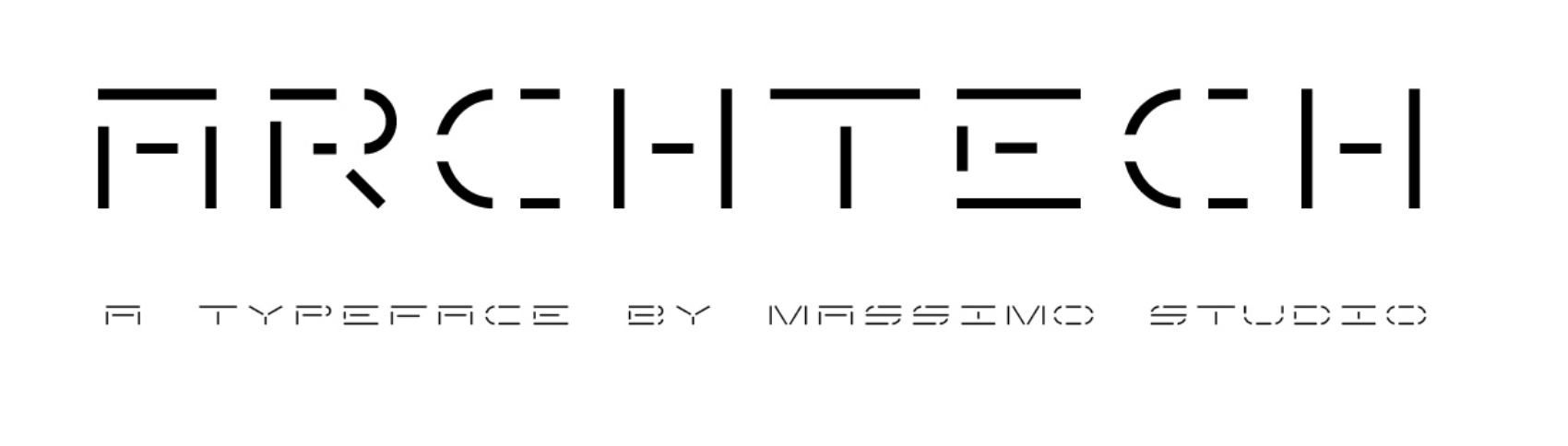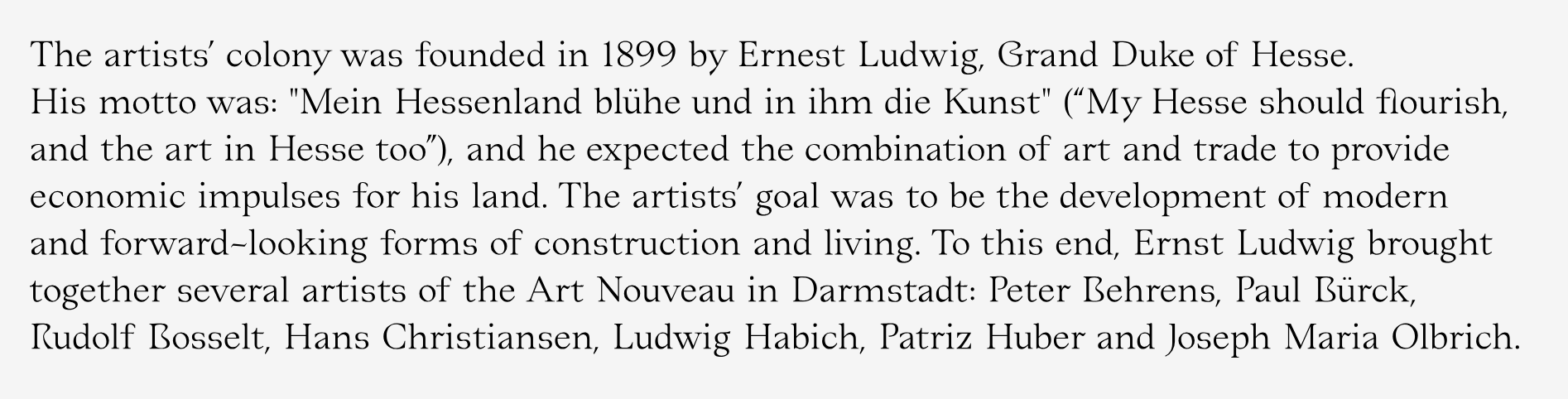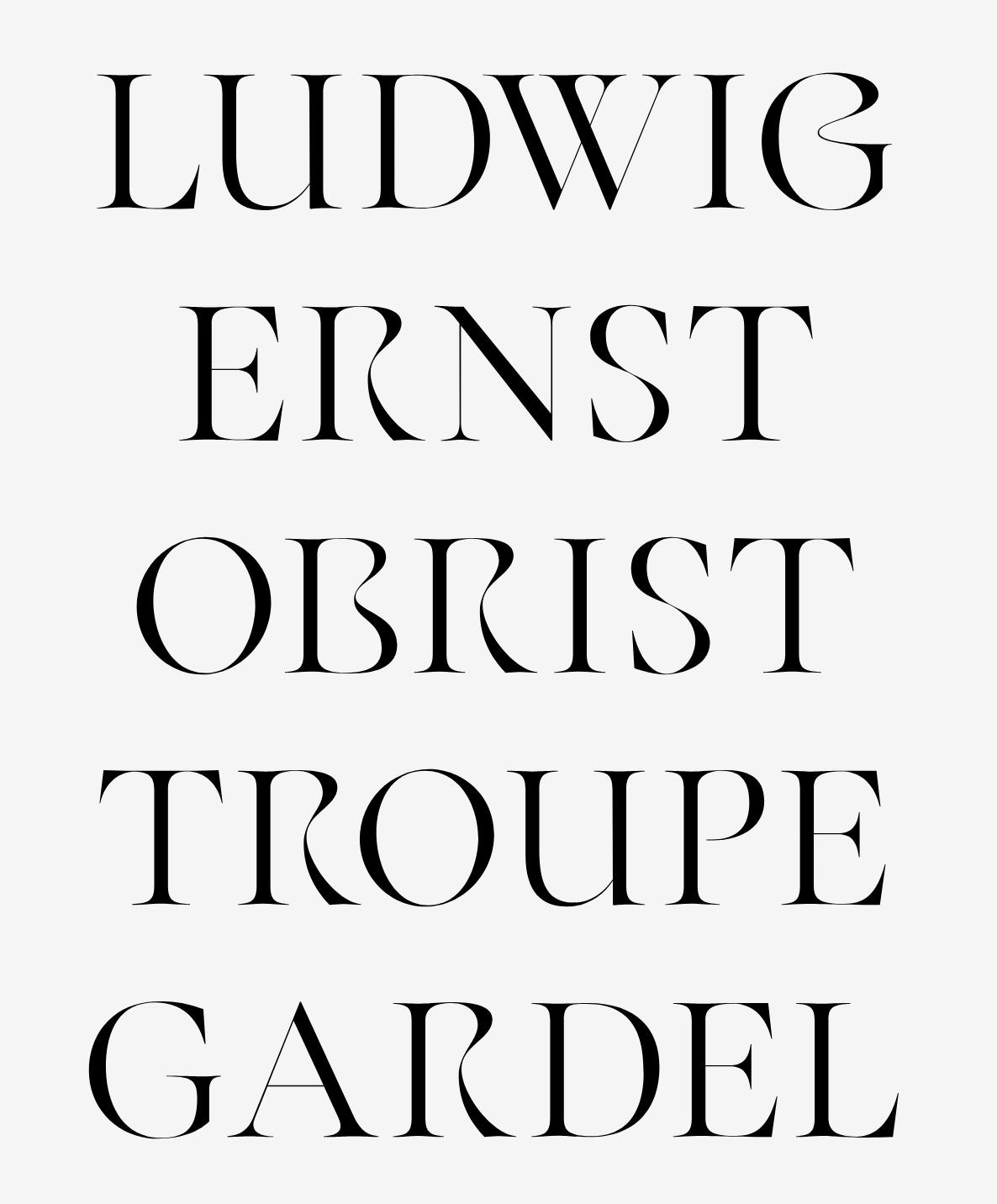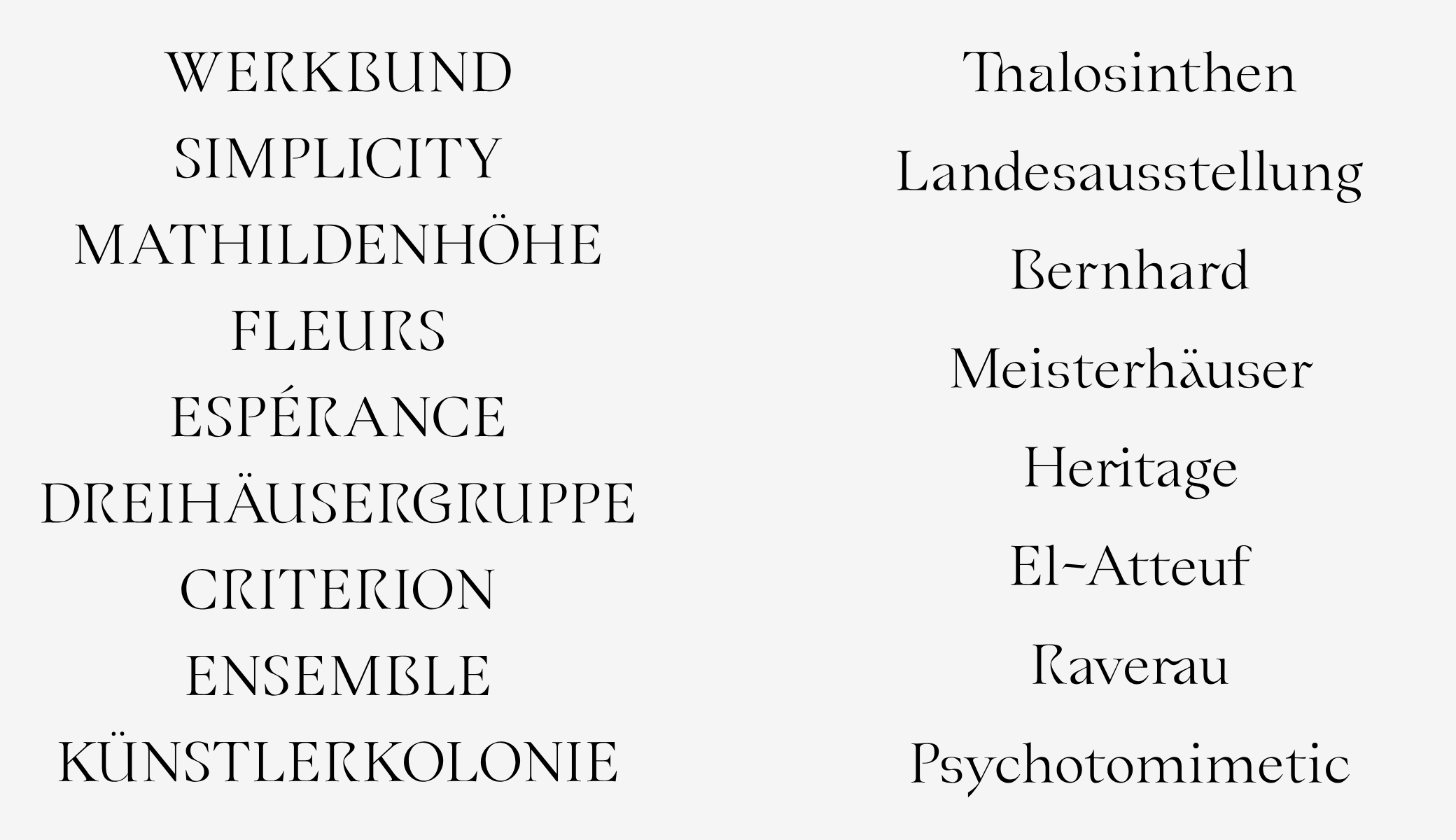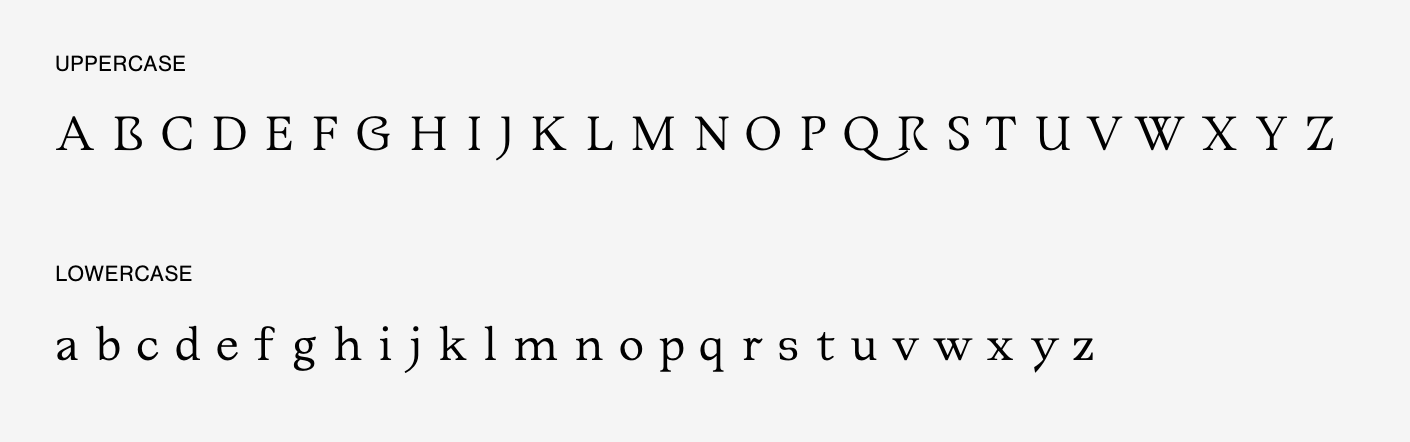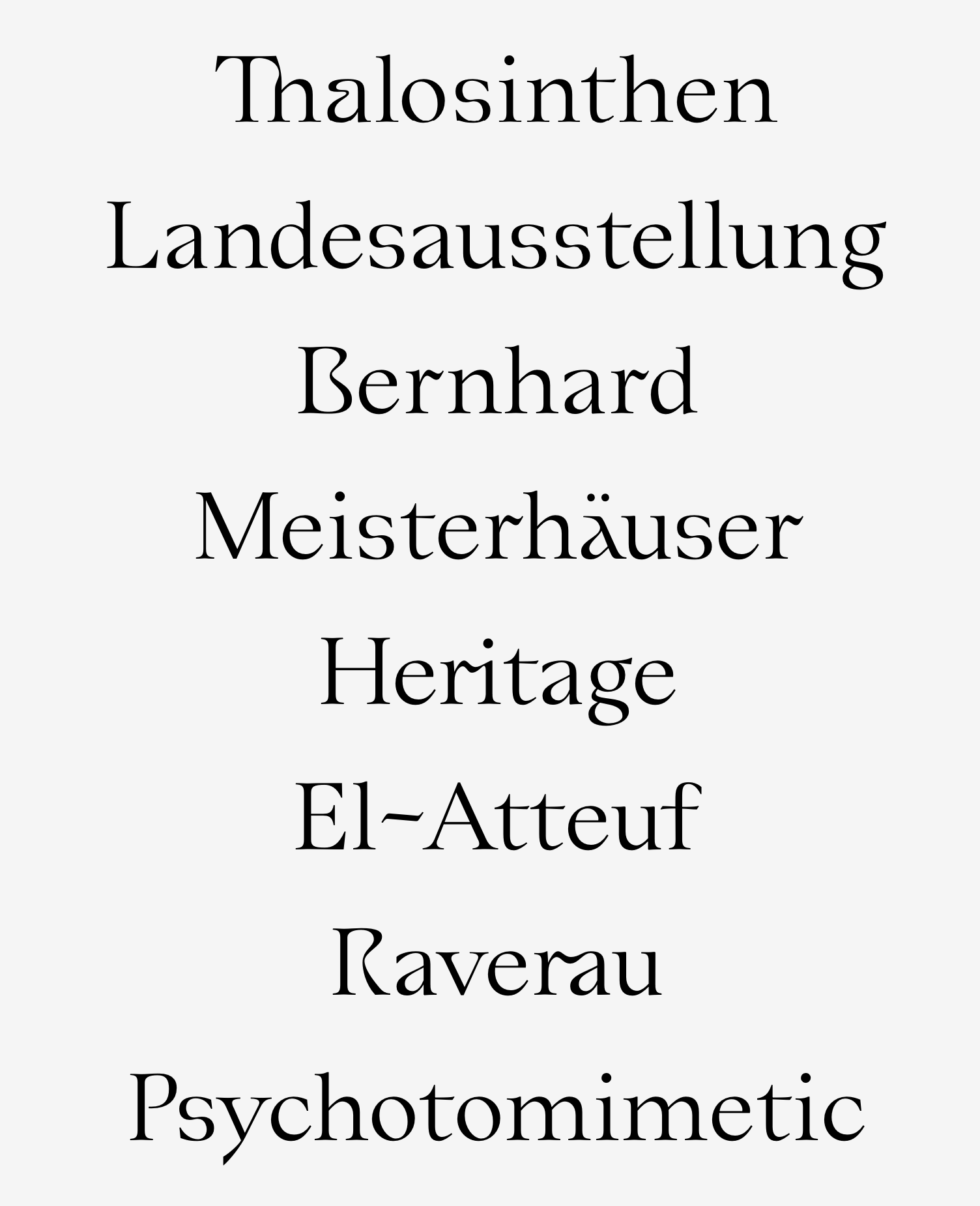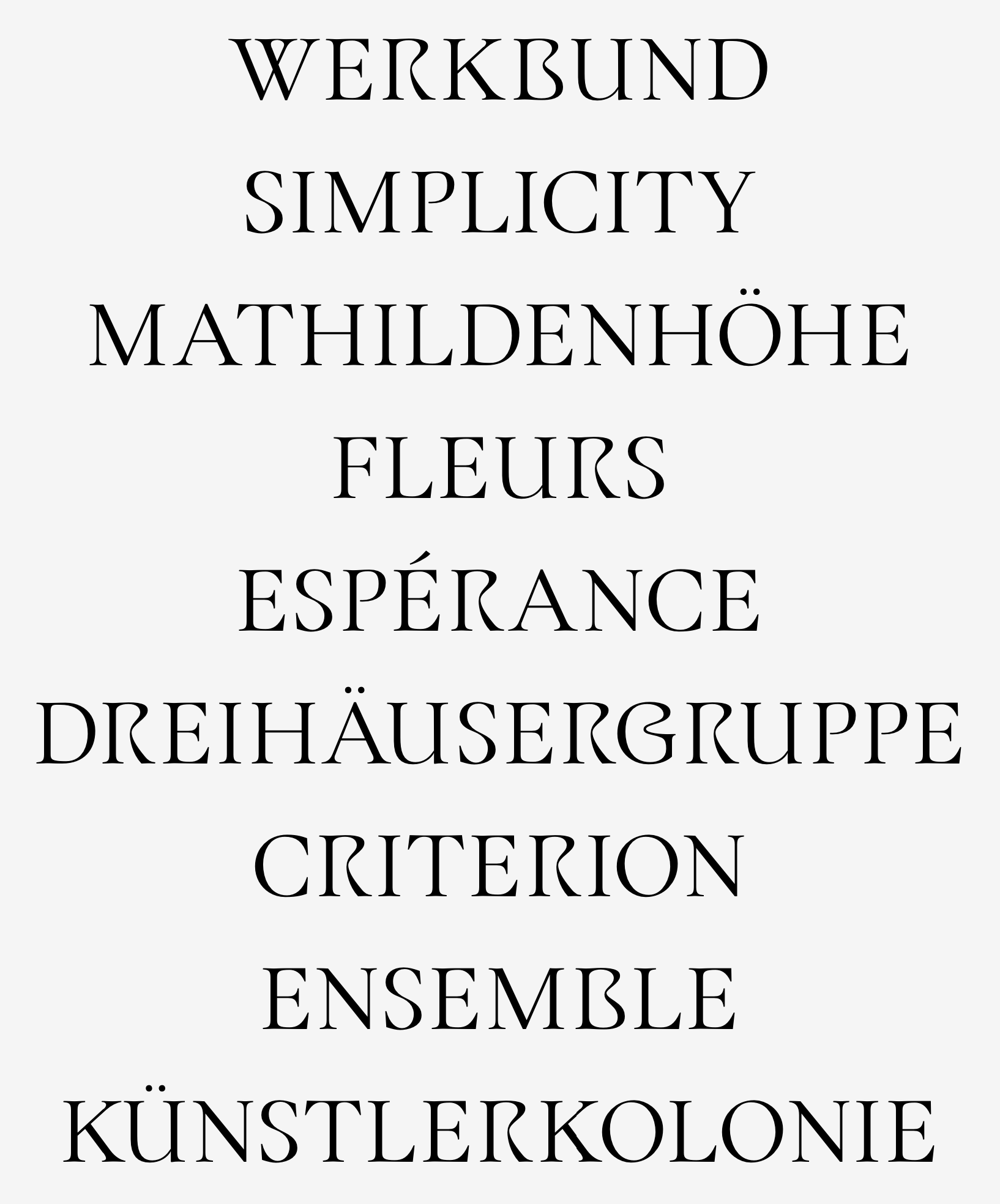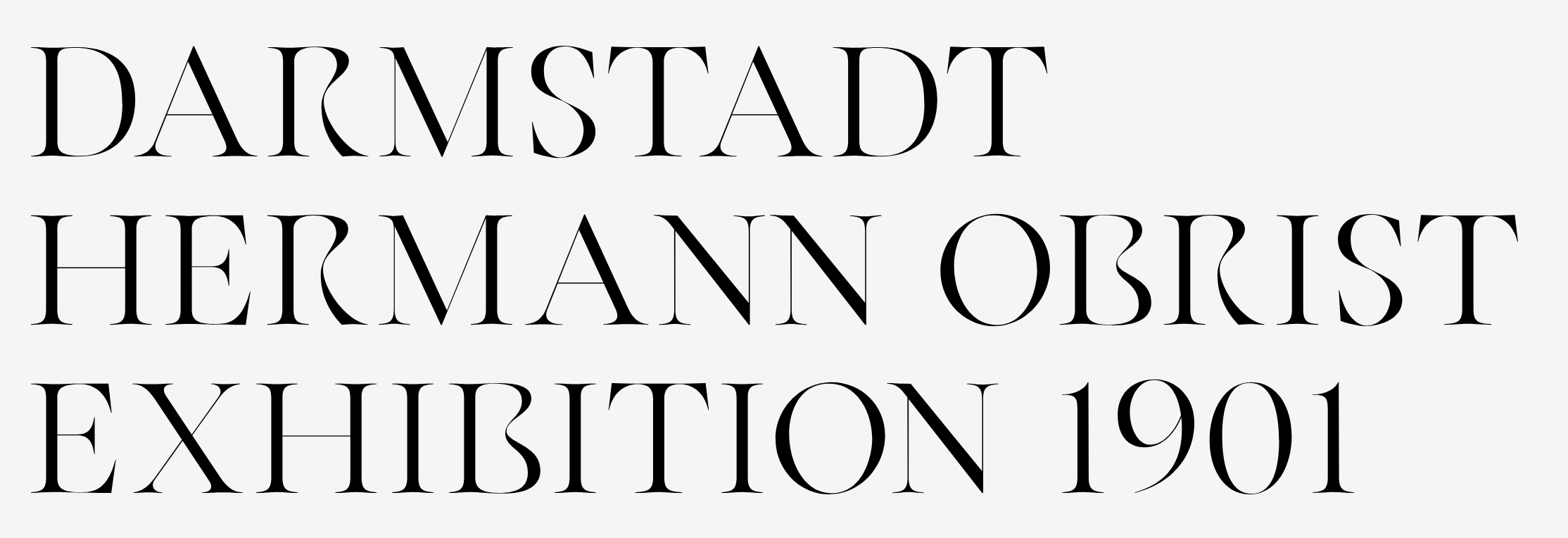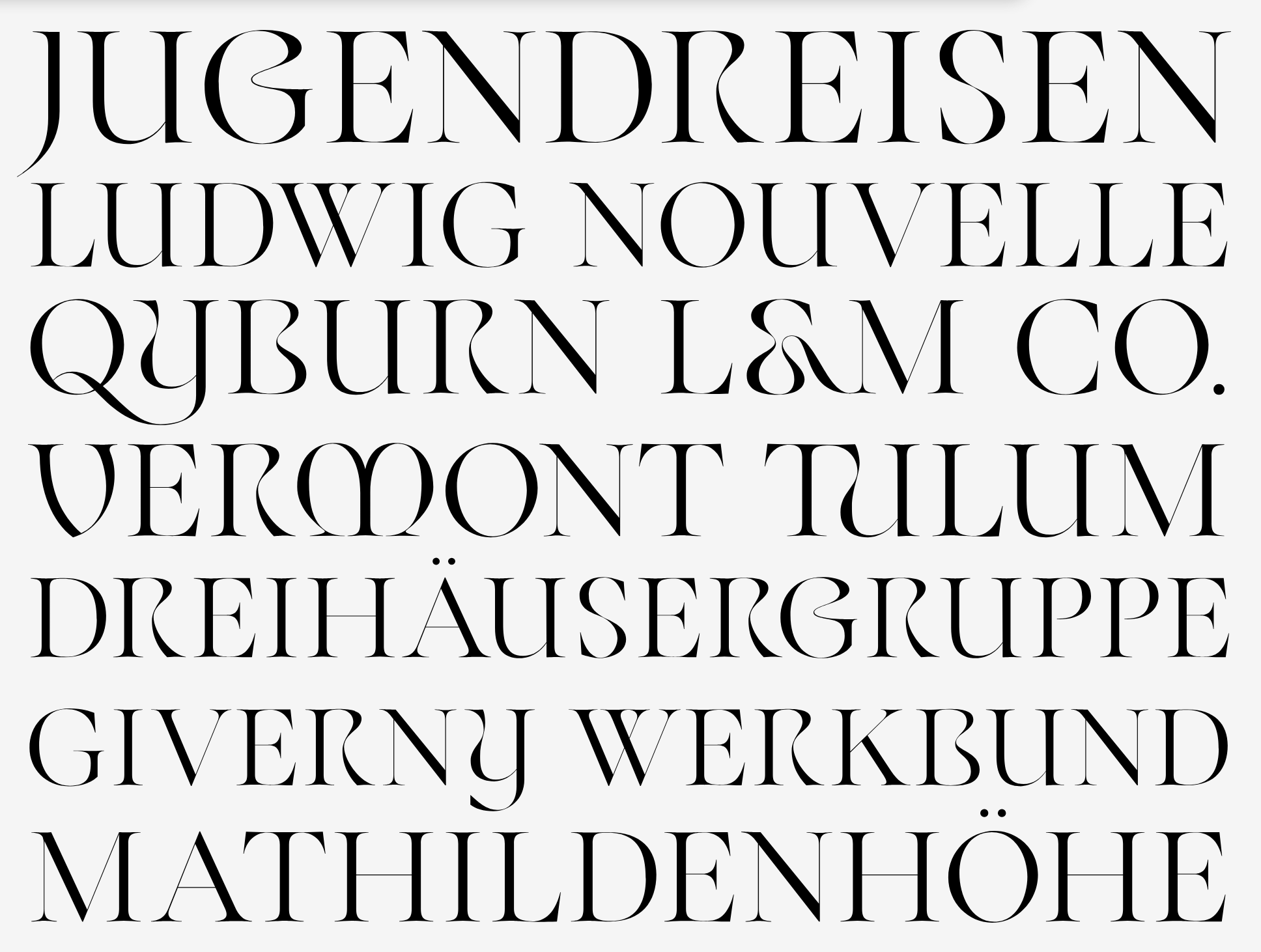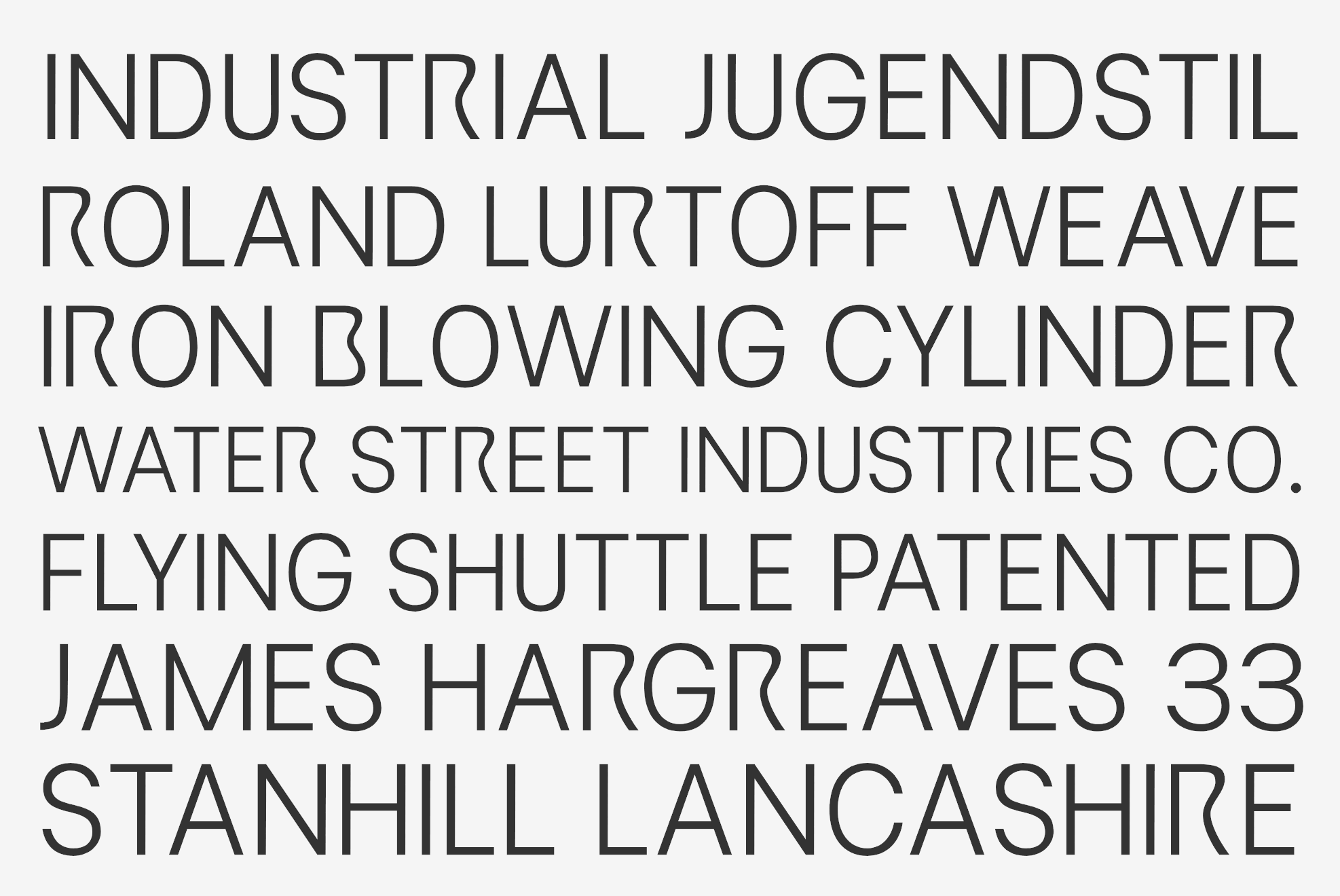
Pretty Faces Typefaces [Jean Wojciechowski]
Jean Wojciechowski is a Barcelona-based graphic designer, who hails from Curitiba, Brazil, and spent some time in New York City. His typefaces:
• Massimo (2018). A bespoke wide sans typeface family for Massimo Studio in Curitiba.
• Linsingen (2017), co-designed with Renato Bertao. It comes in Vintage, Moderna and Stencil styles, and was inspired by Brazilian lithographic tea barrel labels from the early 1900s.
• St Monique (2015). An antiqua typeface.
• Axis (2014). A stunning (and free!) sans typeface.
• Archtech (Massimo Studio). A variable techno font.
• Jugendreisen (2020) and JugendreisenSans (2020), an industrial Jugendstil font family in 3 weights.